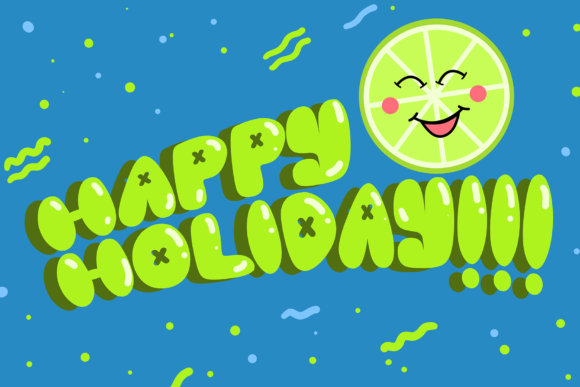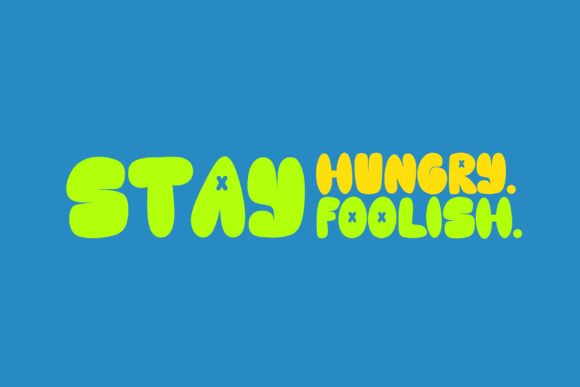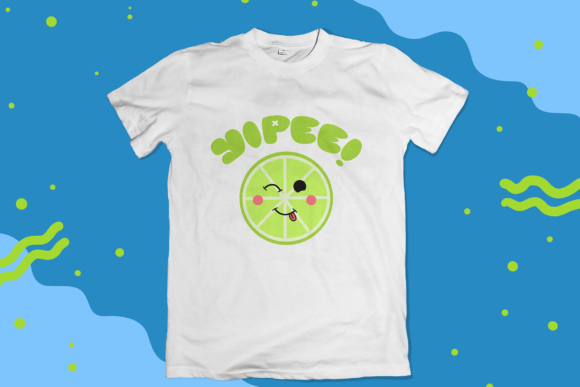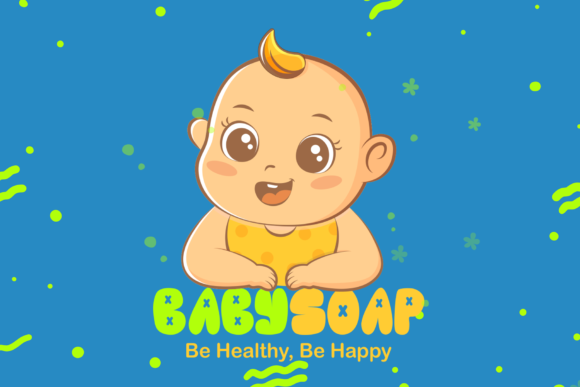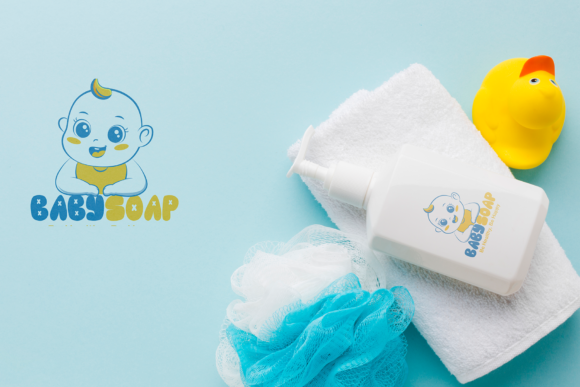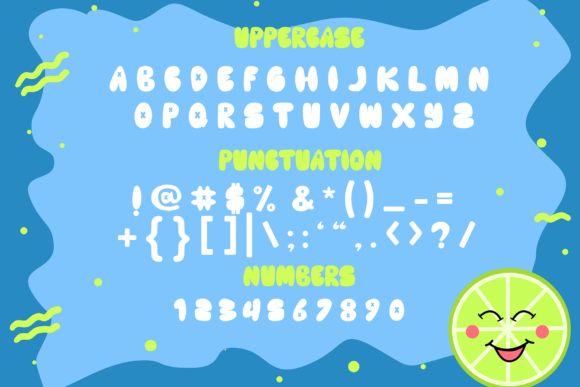
Cute Lime Font: The Ultimate Display Font for Creative Projects
Are you looking for a font that can add a pop of color and personality to your designs? Look no further than Cute Lime, a bold and colorful display font that’s perfect for making your creative ideas stand out. With its friendly feel and versatile style, Cute Lime is an excellent choice for designers and crafters who want to add a touch of whimsy to their projects.
What is Cute Lime Font?
Cute Lime is a display font that’s designed to make a statement. Its bold and colorful design makes it perfect for headlines, titles, and other attention-grabbing elements. The font’s friendly feel is achieved through its rounded edges and smooth curves, which give it a playful and approachable vibe.
Key Features of Cute Lime Font
- Bold and Colorful: Cute Lime is a font that demands attention. Its bold design and bright colors make it perfect for creating eye-catching headlines and titles.
- Versatile: Despite its bold design, Cute Lime is incredibly versatile. It can be used in a wide range of contexts, from playful crafts to professional designs.
- Easy to Read: Despite its bold design, Cute Lime is easy to read, even at smaller sizes. This makes it perfect for use in a variety of applications, from business cards to billboards.
- Friendly Feel: The font’s rounded edges and smooth curves give it a friendly feel that’s perfect for creating approachable and inviting designs.
Uses for Cute Lime Font
Cute Lime is a font that’s perfect for a wide range of creative projects. Here are a few ideas to get you started:
- Signs and Posters: Cute Lime is perfect for creating eye-catching signs and posters. Its bold design and bright colors make it easy to read from a distance.
- Crafts and DIY Projects: Add a touch of personality to your crafts and DIY projects with Cute Lime. Its friendly feel makes it perfect for use in handmade cards, gift tags, and other paper crafts.
- Digital Designs: Cute Lime is also perfect for use in digital designs, such as social media graphics, blog posts, and website headers.
- Branding and Packaging: Use Cute Lime to add a pop of personality to your branding and packaging. Its bold design and bright colors make it perfect for creating eye-catching labels and packaging.
Tips for Using Cute Lime Font
Here are a few tips for getting the most out of Cute Lime:
- Experiment with Colors: Cute Lime is a font that really pops when paired with bright colors. Experiment with different color combinations to find the one that works best for your project.
- Use it Sparingly: While Cute Lime is a bold and attention-grabbing font, it can be overwhelming if used too much. Use it sparingly to create emphasis and draw attention to specific elements.
- Pair it with Other Fonts: Cute Lime is a font that pairs well with other fonts. Try pairing it with a clean sans-serif font to create contrast and add visual interest.
Cute Lime is a bold and colorful display font that’s perfect for making your creative ideas stand out. Its friendly feel and versatile style make it an excellent choice for designers and crafters who want to add a touch of whimsy to their projects. With its wide range of uses and easy-to-read design, Cute Lime is a font that’s sure to become a favorite in your design arsenal.